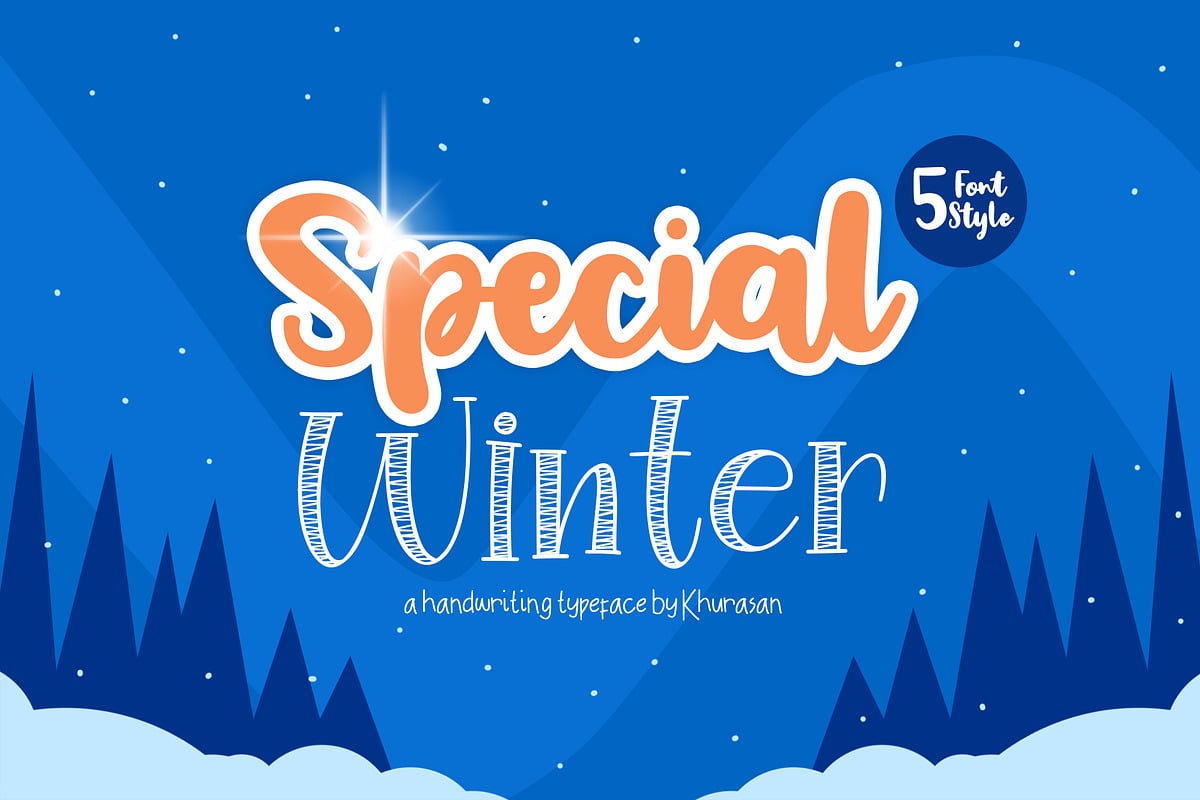
Special Winter 5 Font + Bonus
Create stunning winter designs with this versatile 5-font collection featuring four unique styles plus bonus content. The Special Winter font family combines sans serif, script, handwriting, and doodle styles that work beautifully together or individually. This comprehensive typography package includes the bonus Big Snow script font and Special Winter doodle vectors for maximum creative flexibility. Perfect for business cards, posters, logos, magazines, covers, banners, t-shirts, headers, and la...